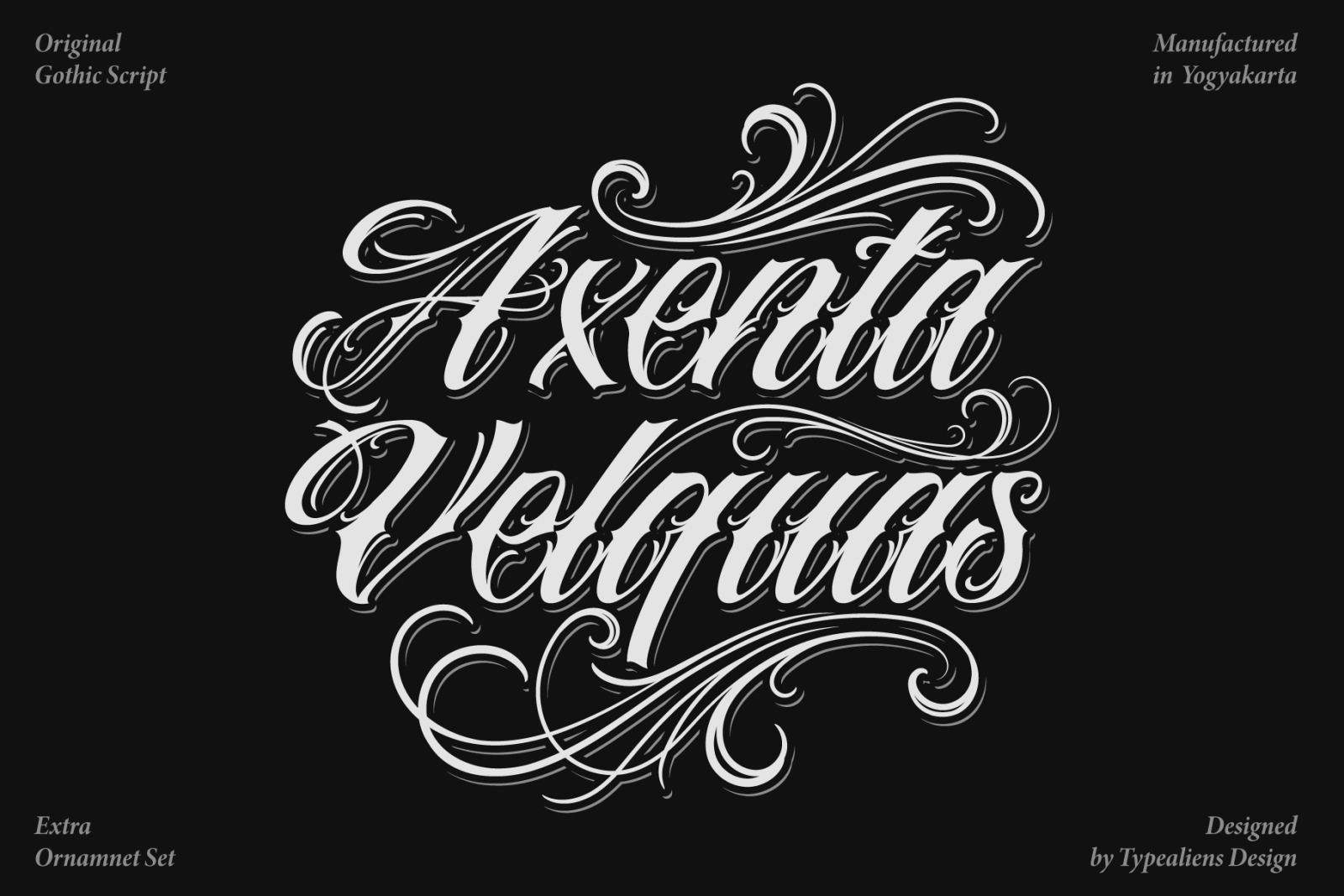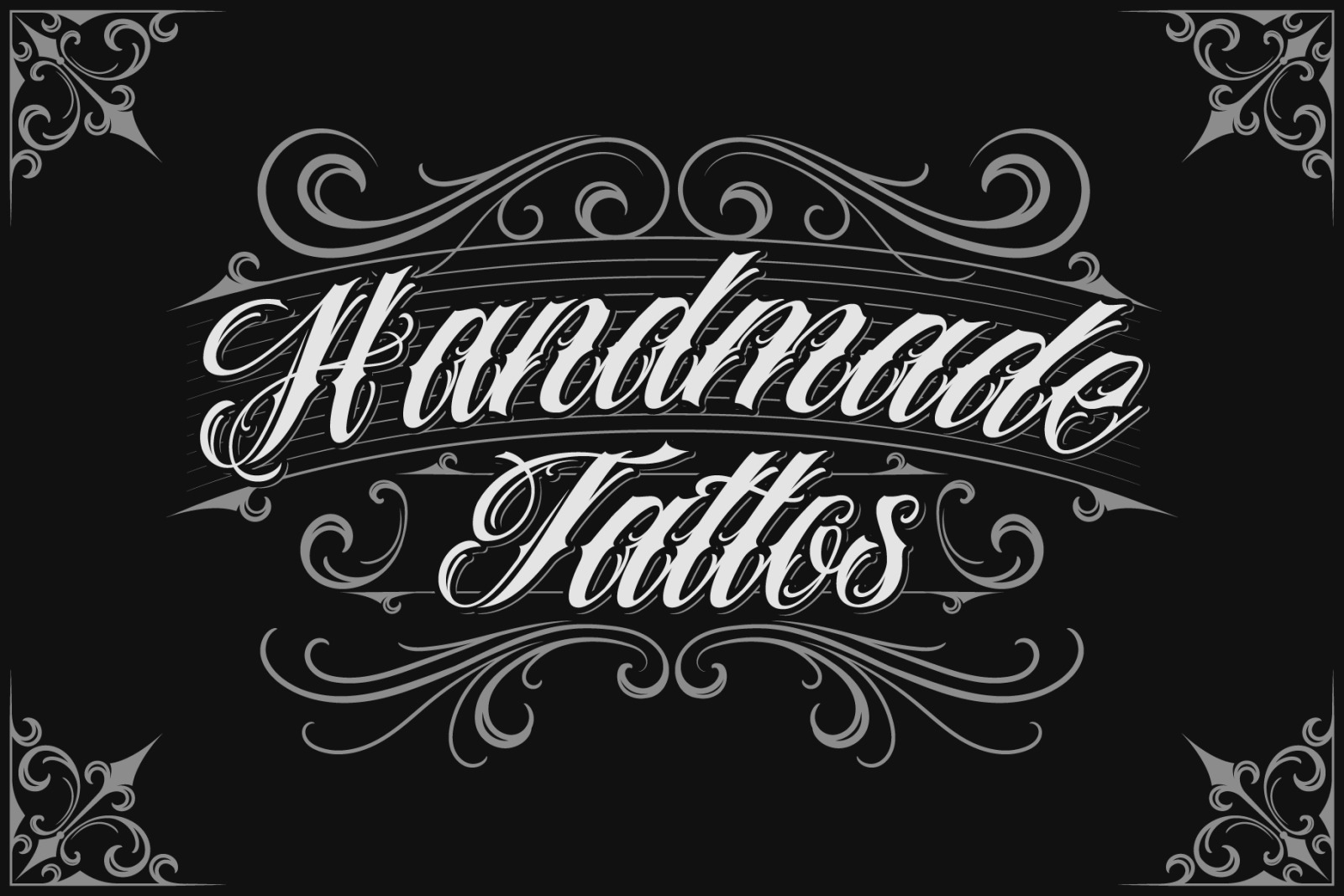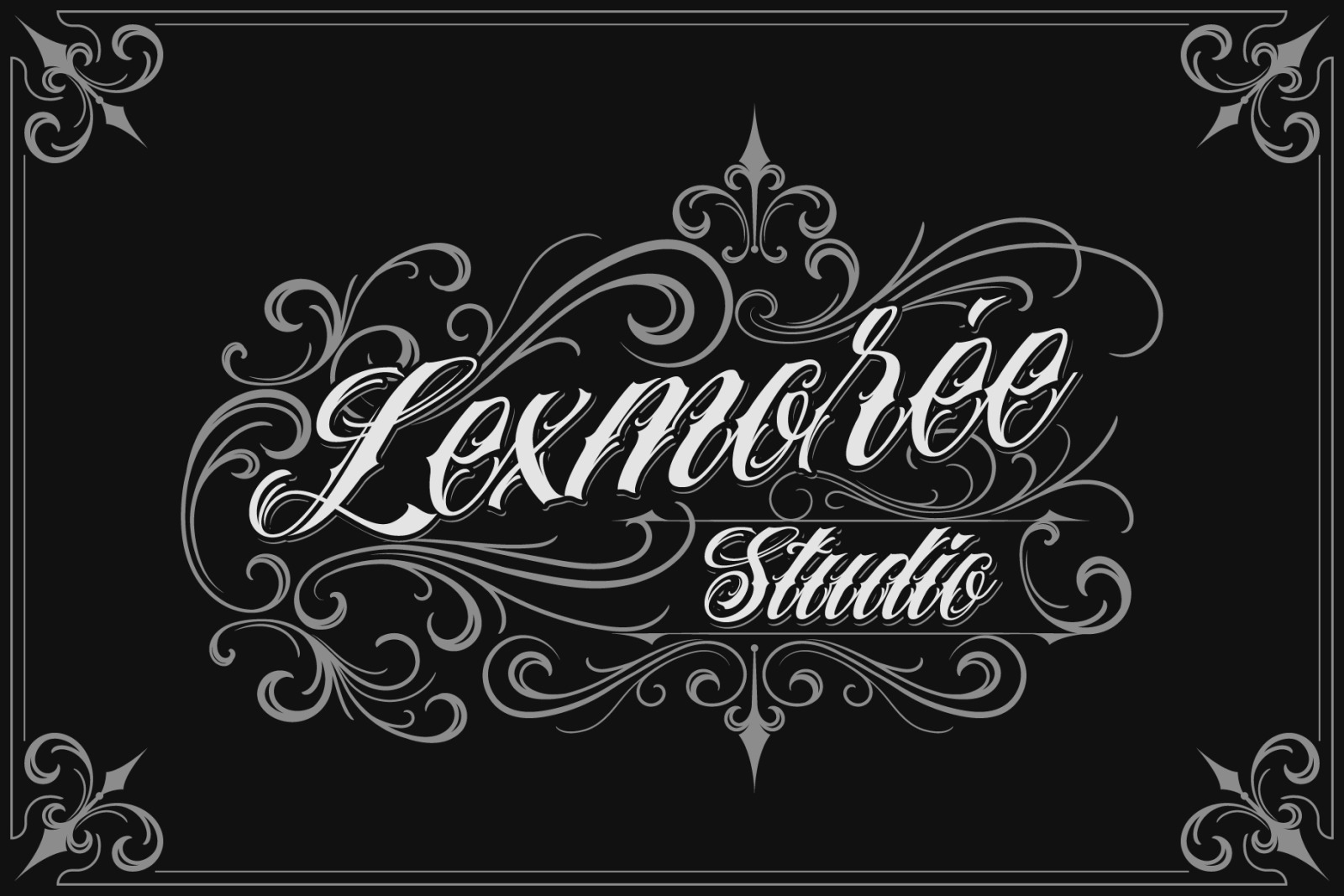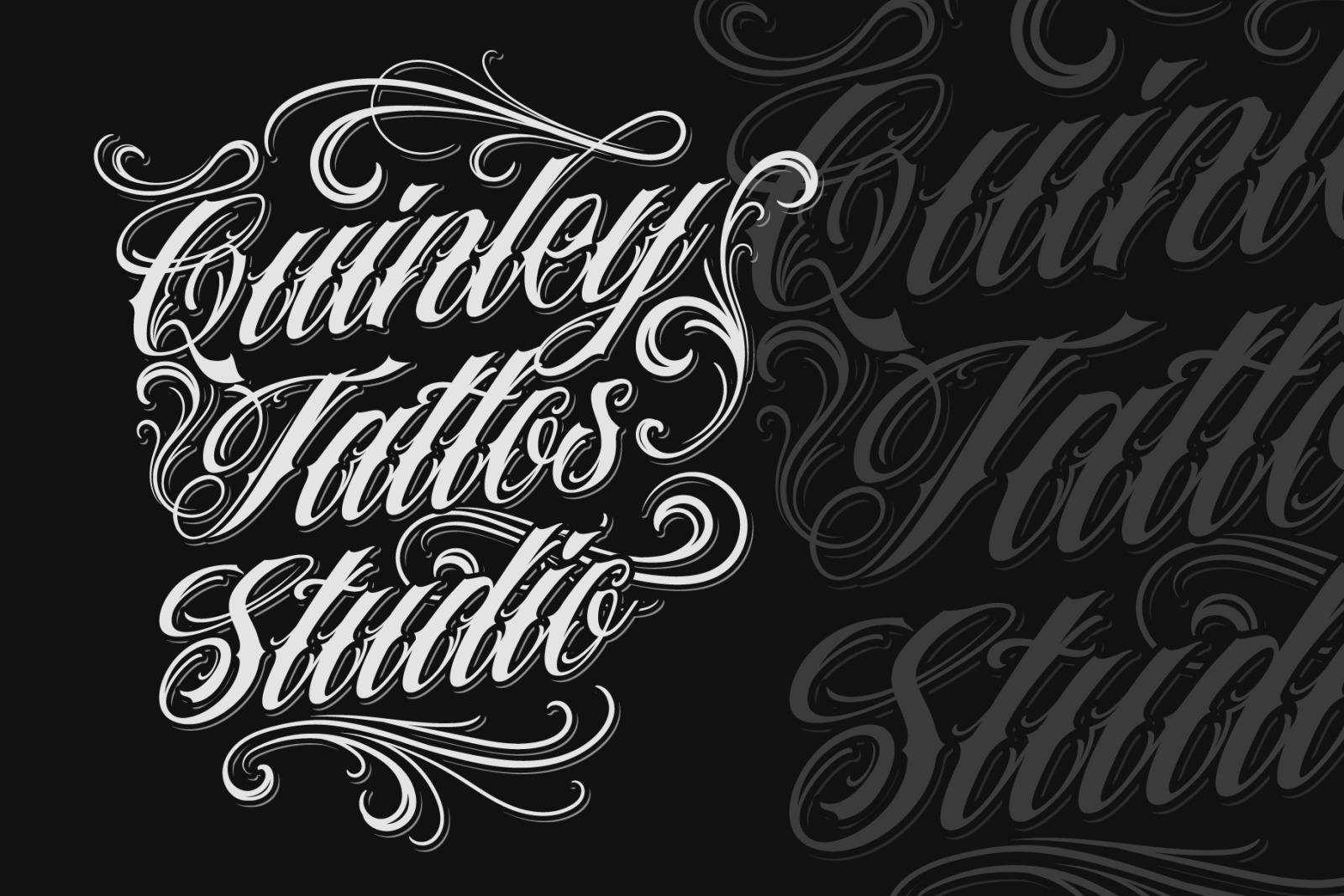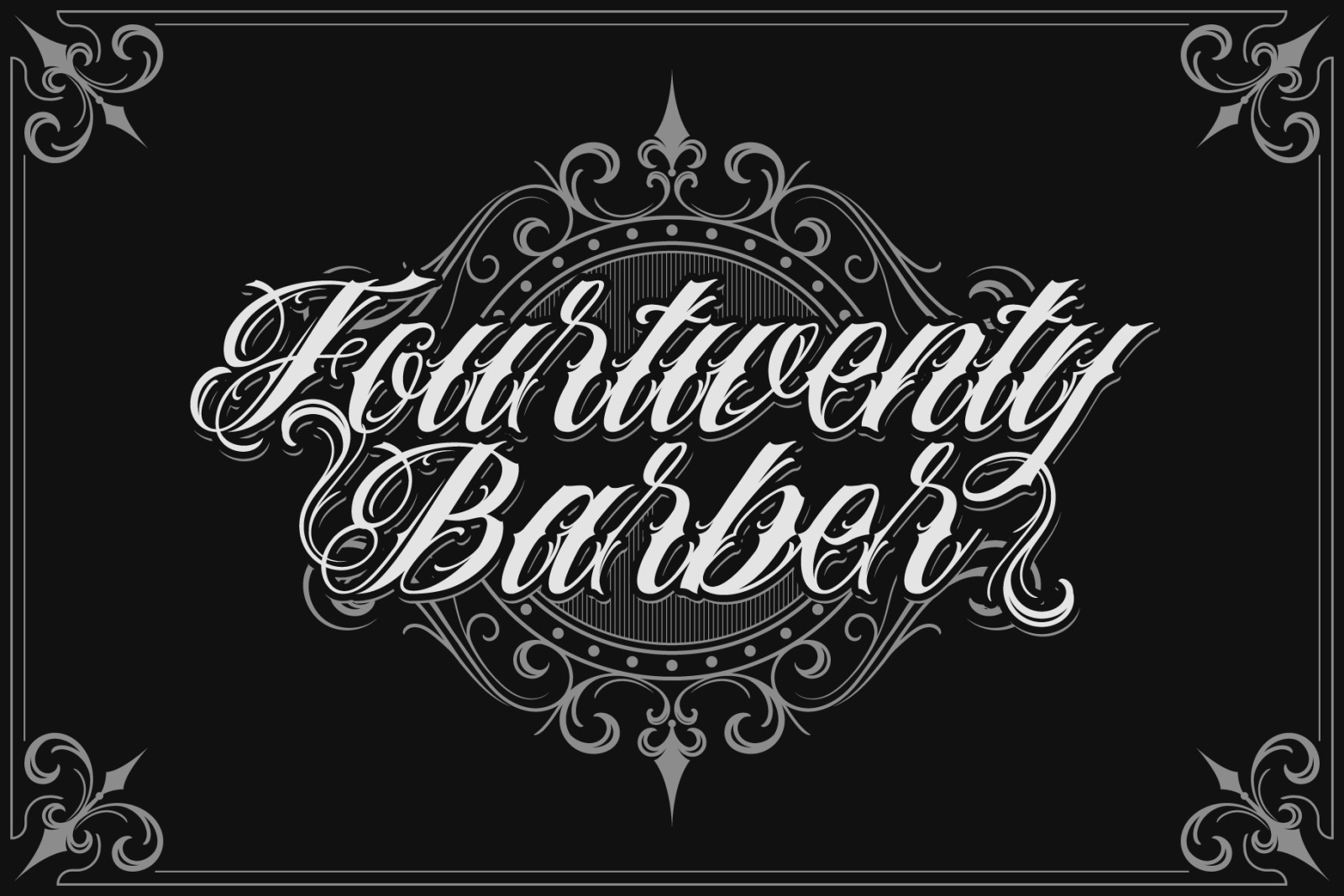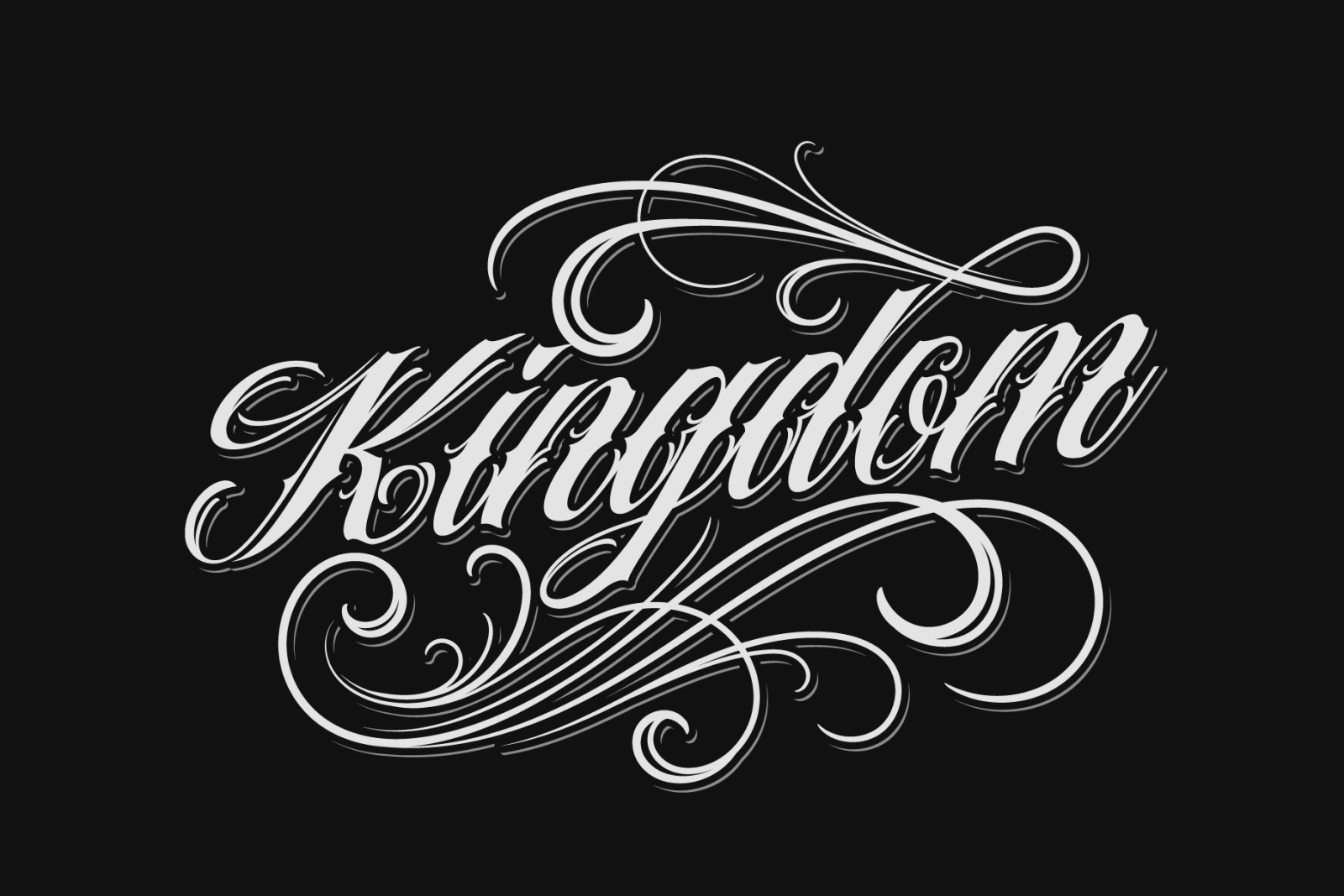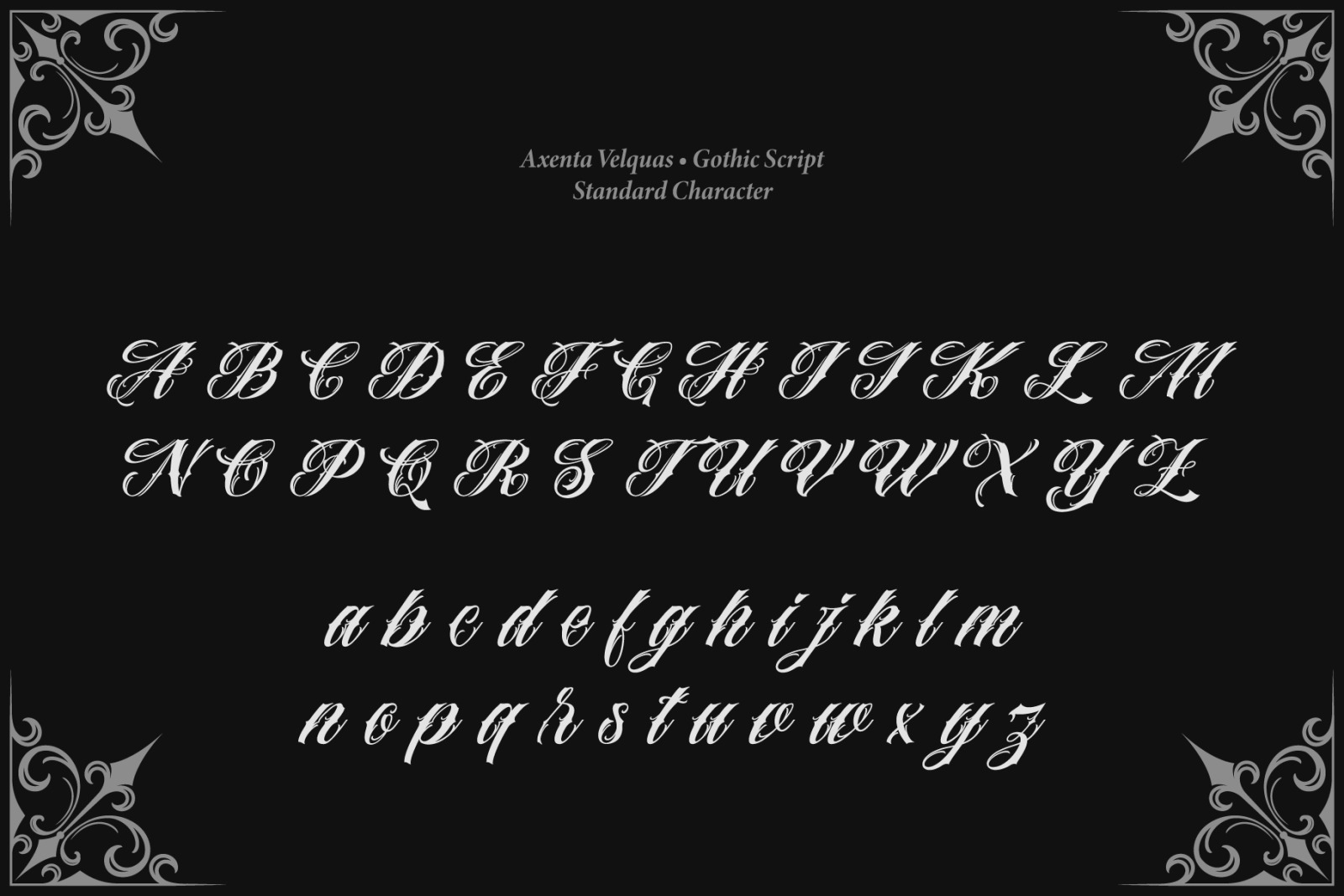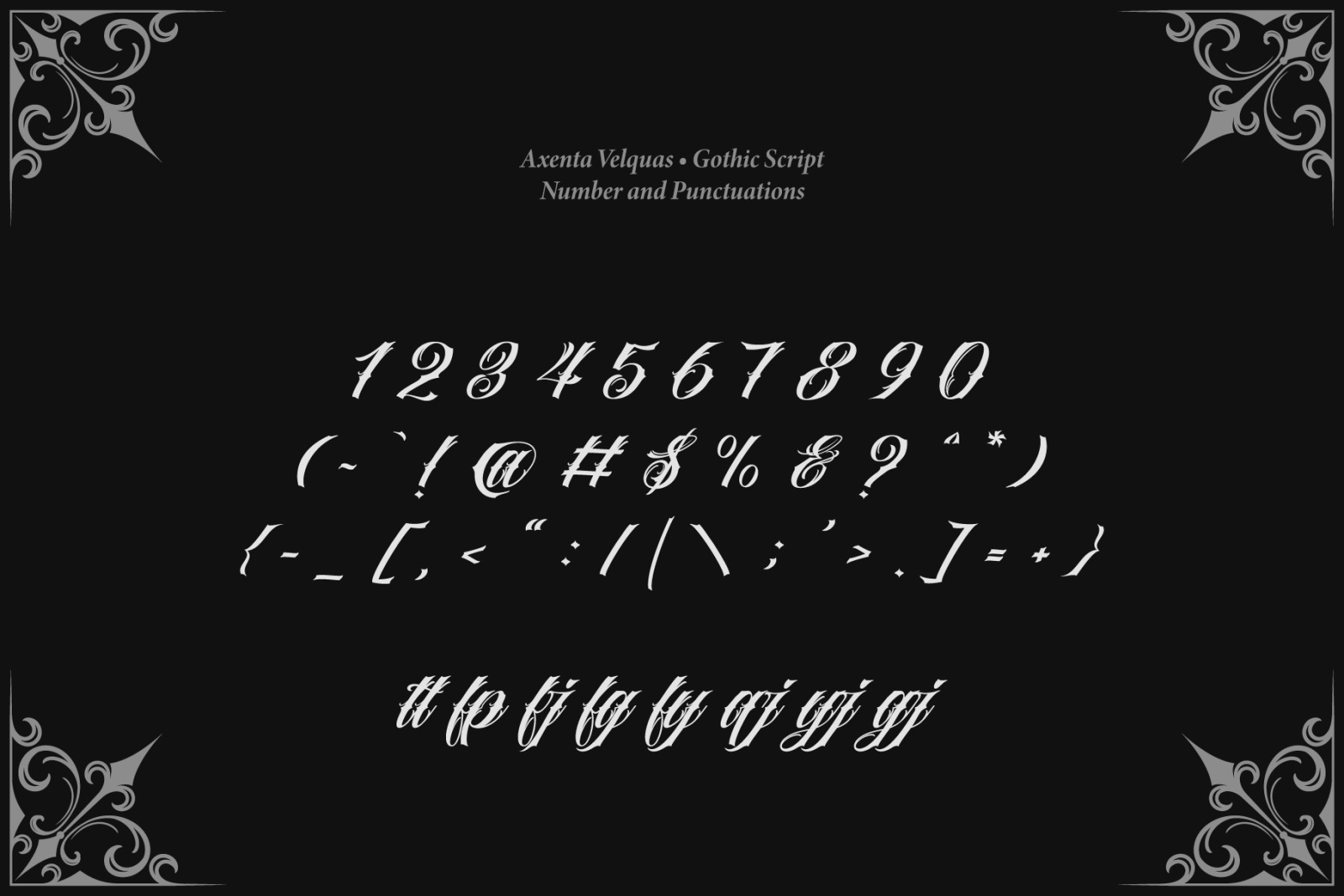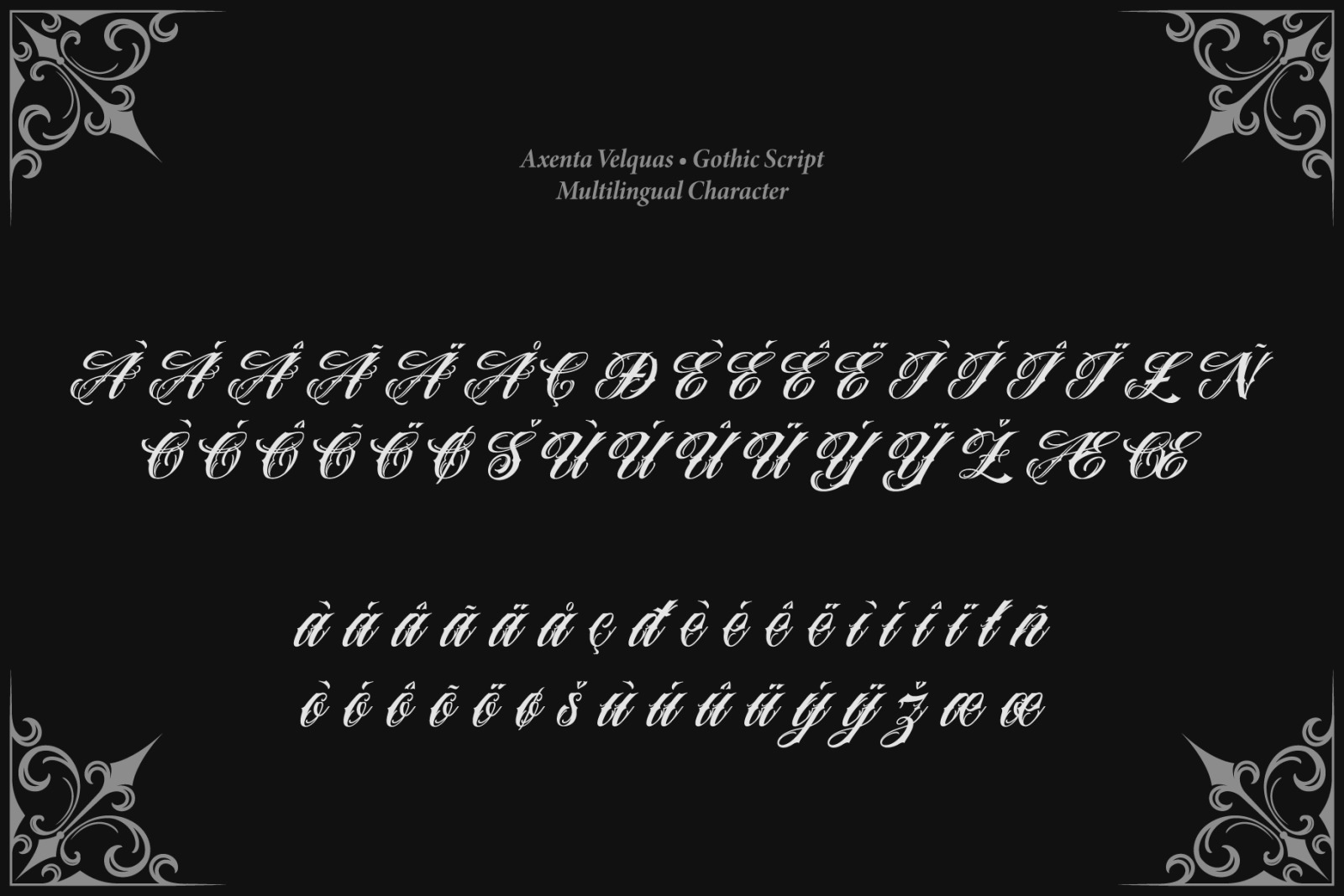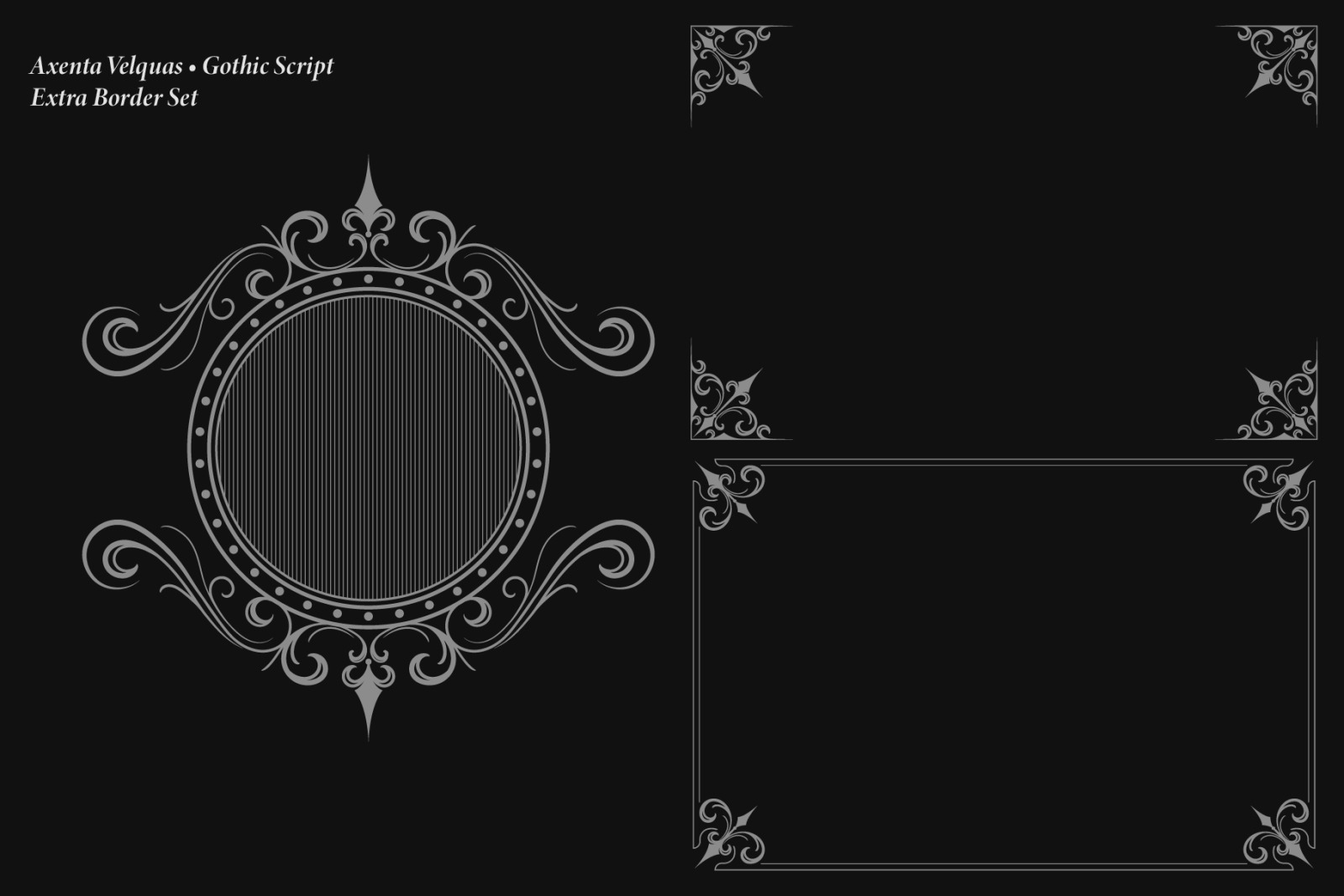
Axenta Velquas Font
AXENTA VELQUAS is a tattoo style script, of course it will be very suitable for your tattoo lettering design. It is also very suitable if you want to make your tattoo studio logo using this font.